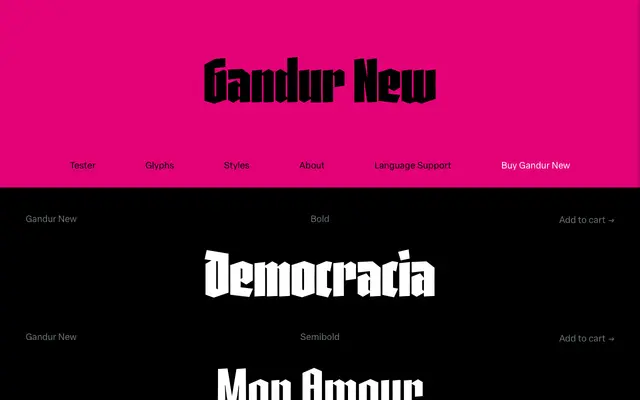
Gandur New
A display textura in three weights by Daniel Sabino, built on a hexagonal grid and refined toward a more humanistic, romanised structure than its companion family Gandur Alte.
Gandur New is one half of the Gandur family, distinguished from Gandur Alte by its more contemporary, humanistic character construction and a fuller set of OpenType features including small capitals. The design began on a strict hexagonal grid, taking cues from Max Bittrof's Element (1933), but progressively shifted toward pen-based forms, particularly in the heavier weights. The result sits between historical rigour and legibility for modern display use, covering an extensive range of Latin-based languages.
Described explicitly as a display textura, Gandur New draws on simplified geometric textura traditions while incorporating humanistic and romanised structural influences, placing it firmly within the blackletter category.